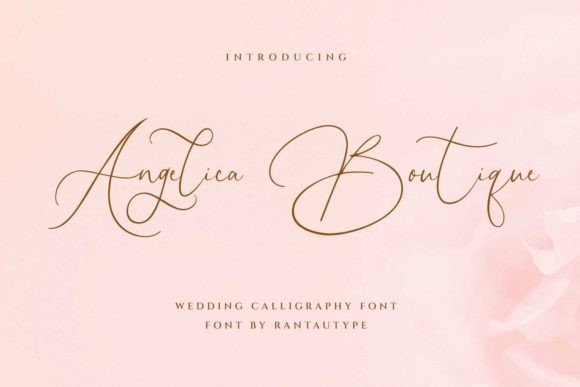
The Perfect Font for a Touch of Elegance
As designers, we’ve all been there – staring at a blank canvas, trying to find the perfect font to capture the essence of our vision. It’s that moment when the right typography can make all the difference, elevating our creations from ordinary to extraordinary. For me, that moment came when I discovered the Angelica Boutique Font – a delicate and elegant script font that exudes a sense of refinement and sophistication.
With its exquisite letterforms and flowing curves, the Angelica Boutique Font is perfect for designers looking to add a touch of luxury and femininity to their projects. Whether it’s a wedding invitation, branding, or an upscale design, this font adds a level of charm and sophistication that’s hard to resist. As designers, we’re always on the lookout for fonts that can elevate our work, and the Angelica Boutique Font is definitely one to consider.
Angelica Boutique Font Key Features
- Font Family: Angelica Boutique Font
- Font Size: 6 styles ranging from Thin to ExtraBold
- Unique Characteristics: Elegant, luxurious, and feminine design, perfect for high-end fashion and luxury brands
- Resolution: Supports high-resolution displays, including Retina and 4K
- Language Support: Multi-language support, including Latin, Cyrillic, and Greek alphabets
Angelica Boutique Font Review
Overall, I’m impressed with the elegance and sophistication of Angelica Boutique Font. Here are some aspects that work well: ✨
- High-end feel: This font exudes luxury and sophistication, making it perfect for high-end fashion brands or premium products.
- Refined curves: The delicate curves of Angelica Boutique add a touch of femininity and whimsy to any design.
- Excellent legibility: Despite its ornate appearance, the font remains easy to read, even at smaller font sizes.
- Limited font weights: While the font is available in several weights, the options are somewhat limited compared to other premium fonts.
- No bold or italic variations: If you need to emphasize certain text or add emphasis to specific words, you may need to look elsewhere.
- May not be suitable for large blocks of text: Due to its ornate nature, Angelica Boutique may become overwhelming when used for extended periods of text.
In conclusion, Angelica Boutique Font is a beautiful and sophisticated choice for designers looking to add a touch of luxury to their designs. While it may have some limitations, it’s a great option for projects that require a high-end feel.
Angelica Boutique Font Practical Application Guide
Use the Angelica Boutique Font for high-end fashion, luxury brands, and elegant invitations. It’s also perfect for creating a sophisticated and elegant look for weddings, corporate events, and upscale businesses.
Remember to use the font in moderation and pair it with a clean and simple design to avoid overwhelming the viewer.
Alternatives to Angelica Boutique Font
The Angelica Boutique Font is a luxurious, elegant script font. Here are a few alternatives that designers can consider:
Ostrich Sans is a modern script font that offers a more playful and casual feel compared to the elegant Angelica Boutique Font. It’s ideal for use in branding, advertising, and editorial designs where a friendly and approachable tone is desired.
Comparison: Ostrich Sans has a more relaxed and casual feel, whereas Angelica Boutique Font is more luxurious and elegant.
Carolyna Pro is a high-end script font that exudes sophistication and glamour. It’s suitable for use in luxury branding, high-end fashion, and fine dining designs where a touch of elegance is required.
Comparison: Carolyna Pro has a similar level of elegance and sophistication as Angelica Boutique Font, but with a more refined and polished look.